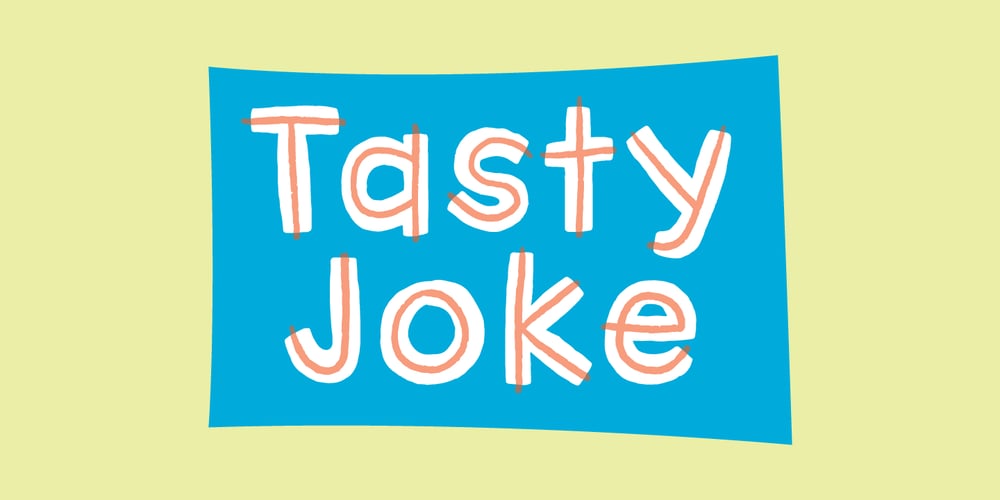
Tasty Joke Font Family was designed by Jakob Fischer and published by PizzaDude.dk. Tasty Joke contains 4 styles and family package options. Tasty Joke was made with a slightly bulgy pen, and by using a loose touch.The result: two fine kinds of naive and lively letters. Combine the Regular and Line versions for cool results.